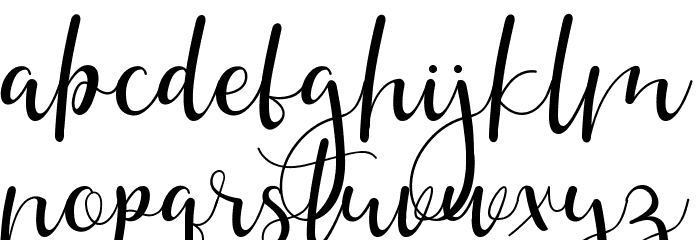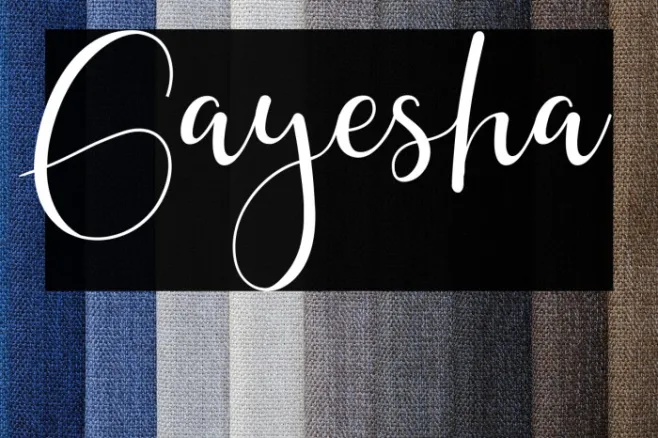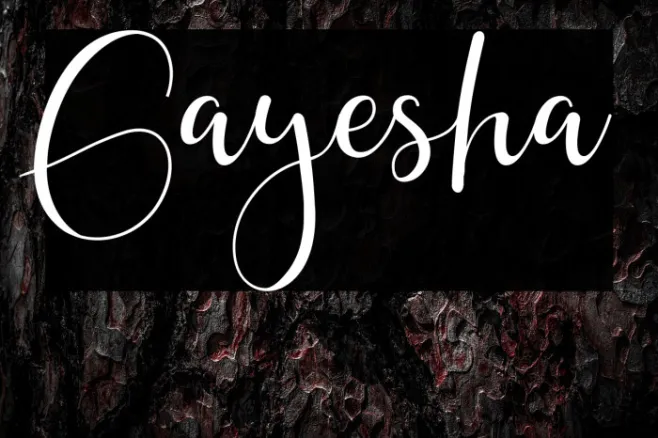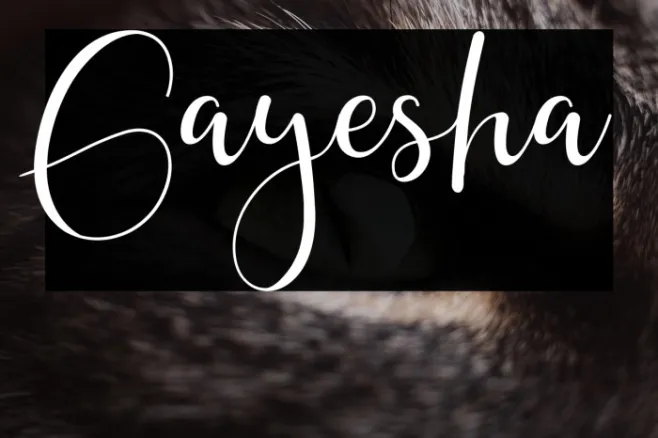
Gayesha Font
This font showcases an elegant and flowing script style, characterized by its smooth, cursive strokes and graceful loops. The uppercase letters are tall and slender, with a sophisticated flair that adds a touch of refinement. The lowercase letters maintain a consistent flow, with some characters featuring distinctive swashes that enhance the overall aesthetic. The numerals are designed to complement the script style, maintaining a cohesive look throughout. Special characters are thoughtfully integrated, ensuring versatility in various design contexts. This font exudes a sense of elegance and charm, making it suitable for projects that require a personal and artistic touch.
An elegant, flowing script font with graceful loops and sophisticated flair.
- Proposed Projects: Ideal for wedding invitations, greeting cards, branding, and elegant logo designs.
- Overall Style: Elegant
- Use Case: Logos, Invitations, Greeting Cards